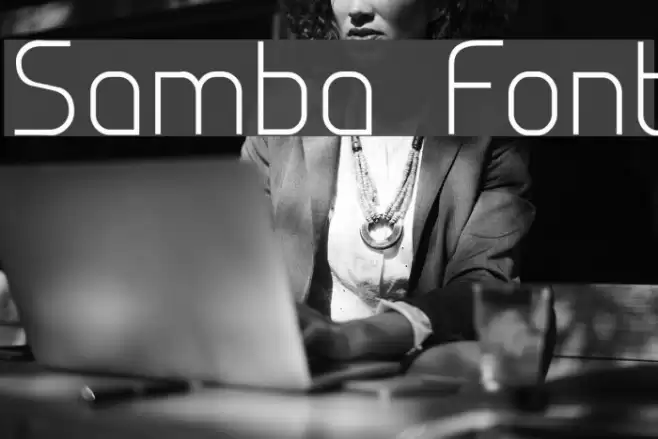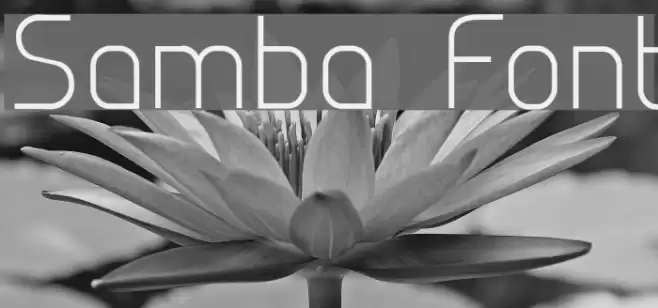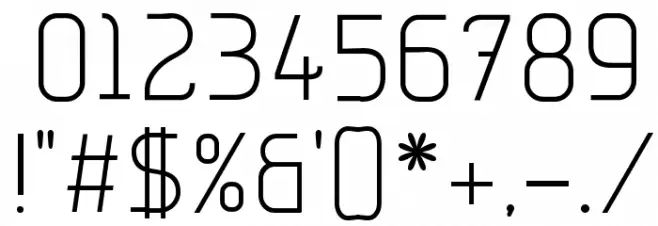
Samba Font
Samba Description
This font features a clean and modern design with rounded edges and a geometric structure. The characters are evenly spaced, providing a balanced and harmonious appearance. The uppercase letters are slightly taller than the lowercase, maintaining a consistent line weight throughout. The numerals are clear and legible, with a uniform height that matches the uppercase letters. Special characters are designed with simplicity, ensuring they integrate seamlessly with the rest of the font. The overall style is minimalistic, making it versatile for various design applications.
A modern, geometric font with rounded edges and consistent line weight from Uncategorized fonts.